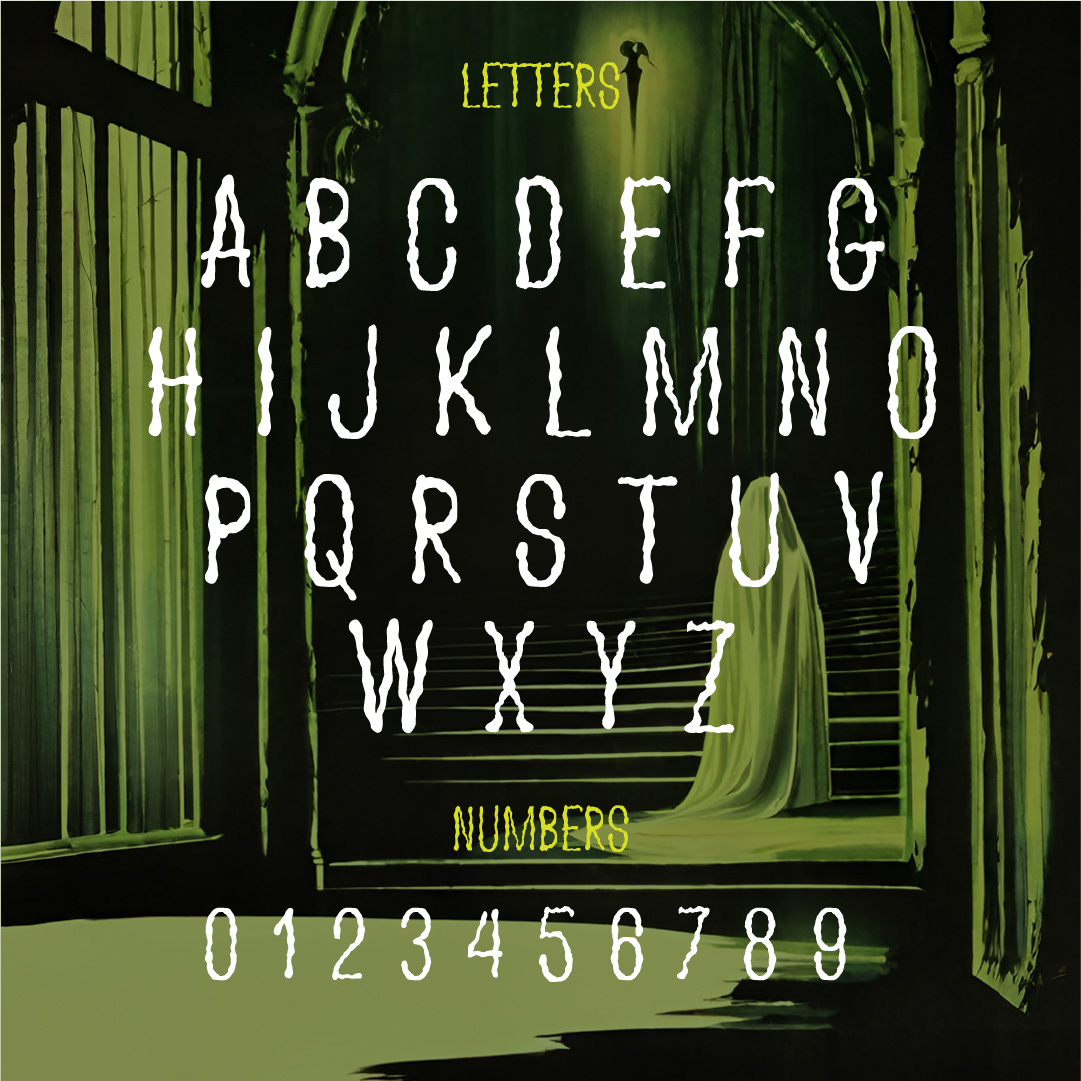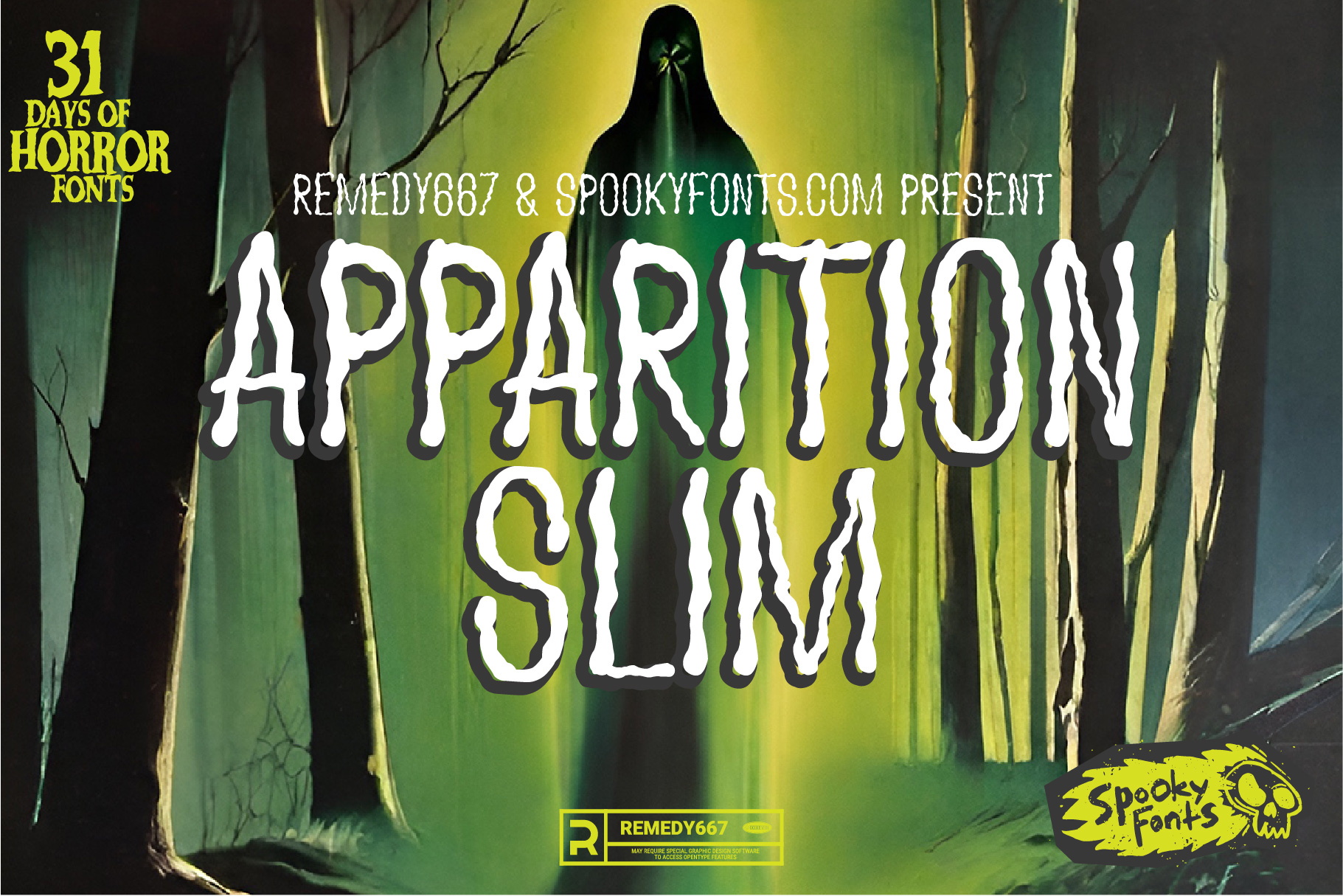
Apparition Slim
Perfect for macabre designs, chilling headlines, eerie posters and spine-tingling invites
Introducing Apparition Slim, the embodiment of ghastly elegance and chilling charm. This condensed, shakey typeface will send shivers down your spine as it adds a touch of macabre to your designs. With its spectral allure and sinuous curves, Apparition Slim is perfect for creating bone-chilling headlines, eerie posters, and spine-tingling invitations.
Delve into the world of horror with this terrifying font that will make your text come alive with otherworldly energy. Watch as each letter dances on the page like a restless spirit trapped in print. The ghostly outlines lend an ethereal quality to every word you write, guaranteeing an unforgettable reading experience that will linger in the minds of your audience long after they’ve looked away.
With its unique blend of supernatural aesthetics and legibility, Apparition Slim offers endless possibilities for all things frightful. Whether conjuring up ghoulish movie titles or brewing sinister book covers, this typeface unleashes terror with razor-sharp precision. So embrace the darkness and unleash your inner cryptkeeper with Apparition Slim – because nothing strikes fear into hearts quite like words written in blood… I mean font!